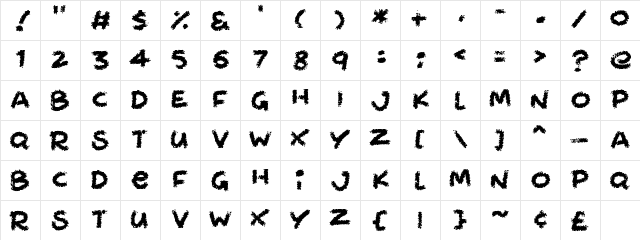
Chalkabout Regular
Design Context for Chalkabout Typeface
Chalkabout is a composed and adaptable typeface that performs quietly and consistently across a wide range of design contexts.